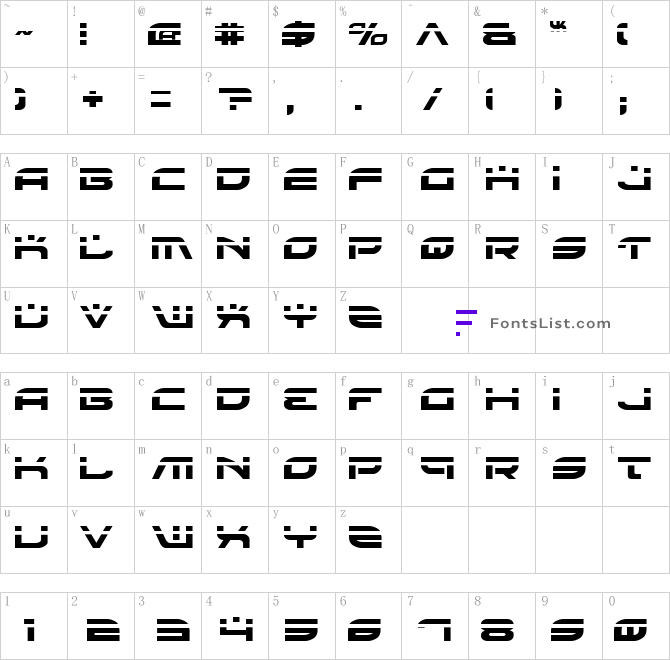
- Font Name:Battlefield Laser
Battlefield-Laser-copy-1-.ttf is a very beautiful artistic font, Battlefield-Laser-copy-1-.ttf is widely used in the design and printing of various books and pictures,Battlefield-Laser-copy-1-.ttf has a strong visual impact,Battlefield-Laser-copy-1-.ttf is a commonly used font in newspapers, magazines and books, and is used in posters, e-commerce Poster design, store design, logo design, font design and other fields.Battlefield-Laser-copy-1-.